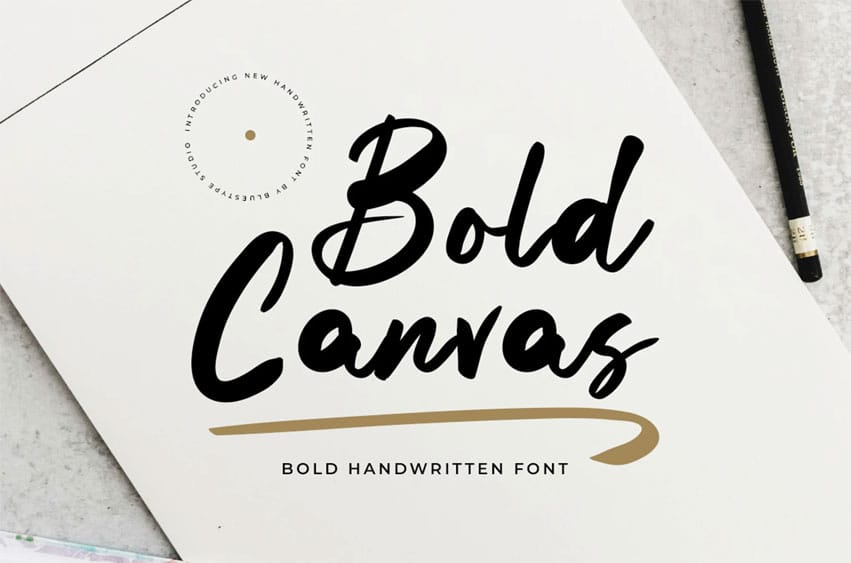
Bold Canvas Font is made with manual handwriting on paper, featuring a beautiful and natural curved shape with thick and thin characteristics. It also includes ligature and swash features, ready to use if needed.
- Swash Character